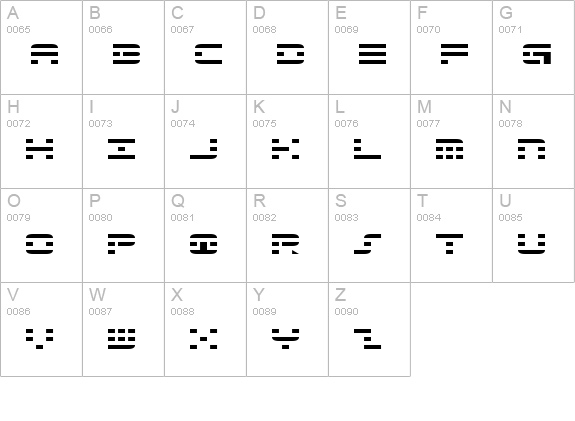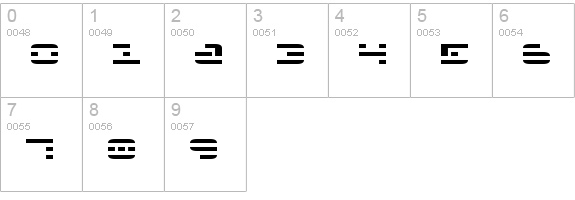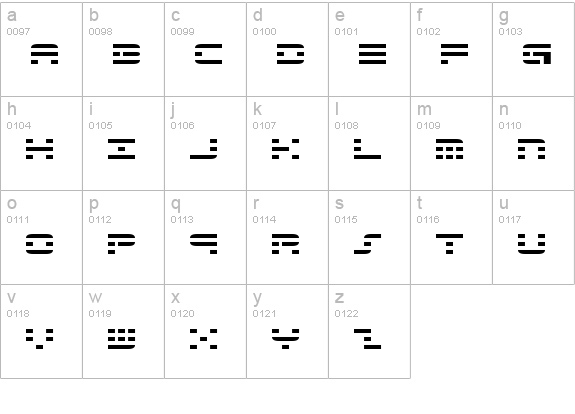
Aldo's Nova Font Details
Aldo's Nova font is a modern and stylish typeface that effortlessly combines elegance with a touch of playfulness. Its clean lines and rounded edges give it a friendly and approachable appearance, making it perfect for a wide range of design projects. Whether used for branding, packaging, signage, or web design, Aldo's Nova adds a contemporary flair to any creative endeavor. The versatility of Aldo's Nova font allows it to be easily integrated into various design styles, from minimalistic and sleek to bold and eye-catching. Its distinctive letterforms and balanced spacing ensure excellent readability both in print and on screen. This font is sure to make your text stand out and leave a lasting impression on viewers. The best part? Aldo's Nova font is completely free to download at FontsMarket.com, making it accessible to designers and enthusiasts alike. Don't miss out on the opportunity to enhance your projects with this fantastic typeface. Download Aldo's Nova today and let your creativity soar!